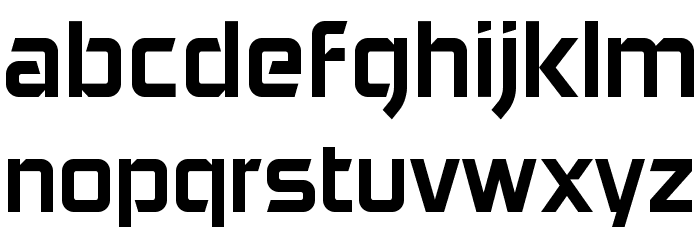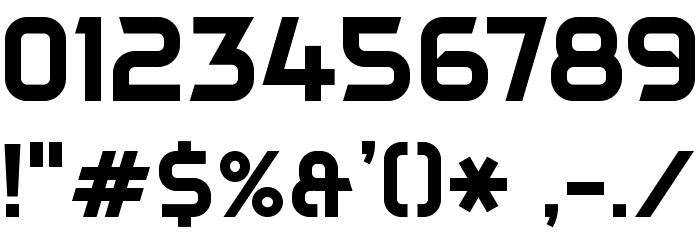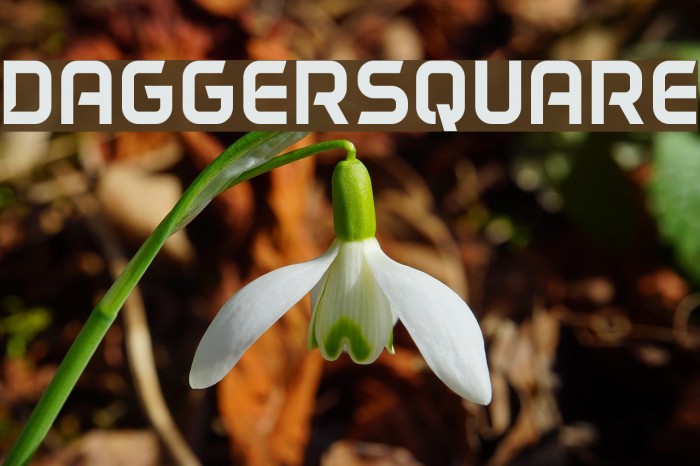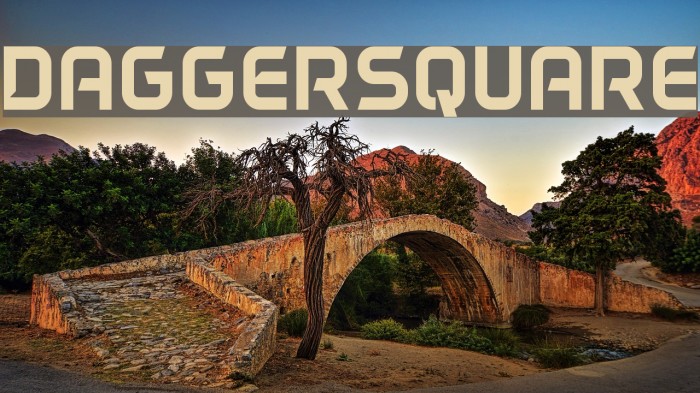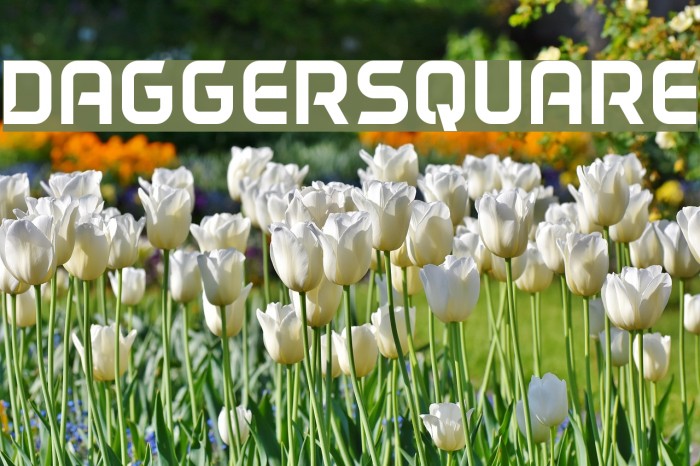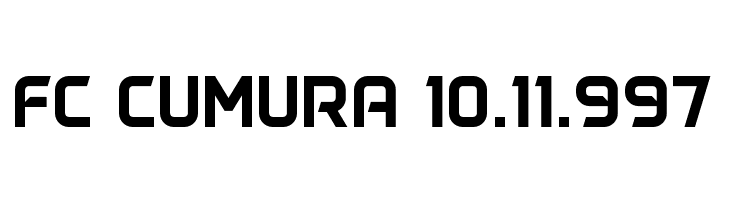
DAGGERSQUARE Font
This font features a bold and geometric design with a modern aesthetic. The characters are constructed with sharp, angular lines and a consistent stroke width, giving it a strong and assertive presence. The uppercase letters are particularly striking, with a uniform height and width that create a cohesive look. The lowercase letters maintain the geometric style, offering a unique twist on traditional letterforms. Numbers and special characters are designed to match the overall style, ensuring versatility across different uses. The font's clean and structured appearance makes it suitable for a variety of design projects.
A bold, geometric font with a modern and assertive style.
- Proposed Projects: Ideal for branding, headlines, posters, and digital interfaces where a strong visual impact is desired.